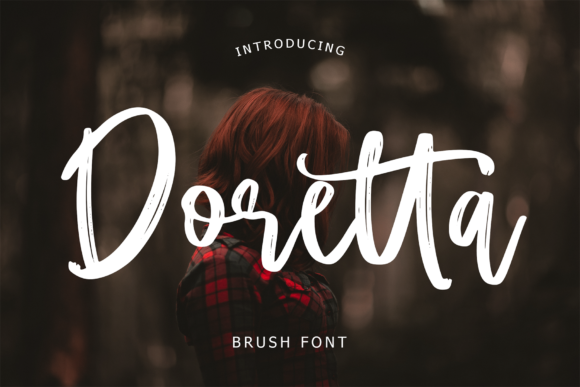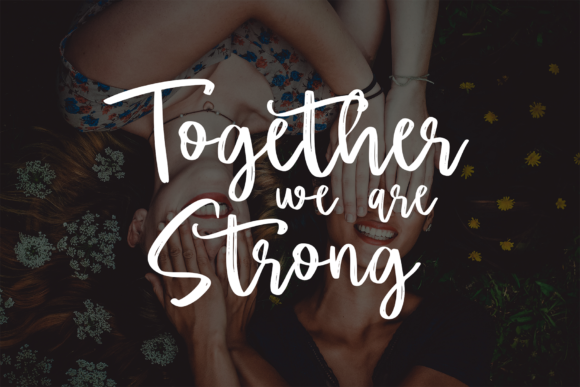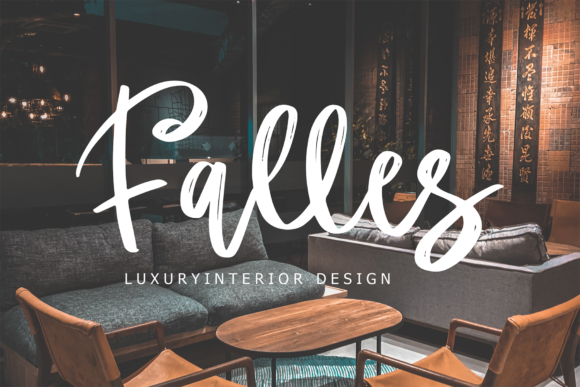
Doretta Font
Doretta is a sweet and flowing handwritten font, created with the help of a brush pen. Fall in love with its incredibly versatile style and use it to create gorgeous wedding invitations, beautiful stationary art, eye-catching social media posts, and much more!